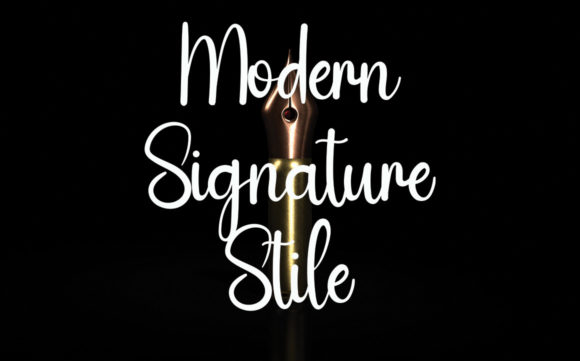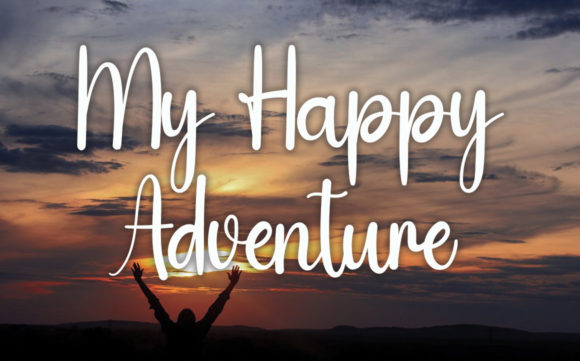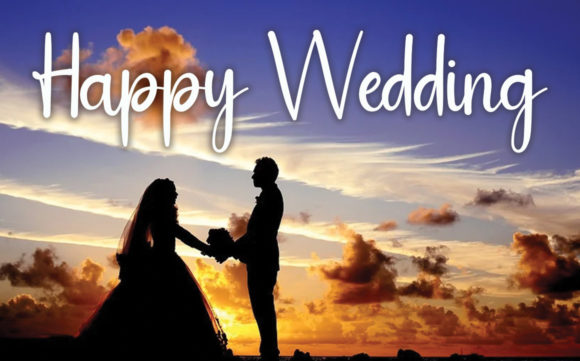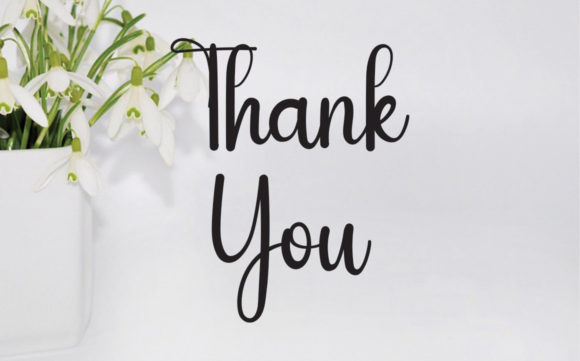
Introducing Gelantis Font: Elevate Your Designs with Elegance and Flair
In the world of typography, a font can make or break a design. For designers and crafters seeking to add a touch of elegance and sophistication to their projects, Gelantis Font is an exceptional choice. This beautiful, flowing handwritten font is perfect for a wide range of applications, from wall displays and wedding invitations to social media posts, logos, advertisements, and more.
The Beauty of Gelantis Font
Gelantis Font boasts a unique, handcrafted aesthetic that sets it apart from more traditional fonts. Its flowing lines and delicate curves give it a feminine, elegant feel that’s ideal for designs where you want to make a lasting impression. Whether you’re creating wedding invitations, branding materials, or product packaging, Gelantis Font adds a touch of class and sophistication that’s sure to captivate your audience.
One of the standout features of Gelantis Font is its incredible versatility. This font isn’t just limited to a specific type of project; it’s designed to be used across a broad spectrum of design applications. Here are some of the many ways you can use Gelantis Font:
- Wall Displays: Create stunning wall art or signage that commands attention with Gelantis Font.
- Wedding Invitations: Add a touch of romance and elegance to your wedding invitations and stationery.
- Social Media Posts: Elevate your social media graphics and posts with a sophisticated, eye-catching font.
- Logos: Use Gelantis Font to create unique and memorable logos for your brand or business.
- Advertisements: Stand out in the crowded world of advertising with elegant typography.
- Product Packaging: Give your products a premium feel with beautifully designed packaging.
- Product Designs: Incorporate Gelantis Font into your product designs for a cohesive and stylish look.
- Labels: Create eye-catching labels for your products or gifts.
- Photography: Use Gelantis Font for watermarks or overlays on your photos.
- Invitations: Perfect for all types of invitations, from birthday and graduation to baby shower and more.
- Stationery: Elevate your stationery and correspondence with a touch of elegance.
Why Choose Gelantis Font?
- Unique Aesthetic: Gelantis Font offers a distinctive look that’s sure to set your designs apart.
- Elegance and Sophistication: Add a touch of class to any project with this beautiful font.
- Easy to Read: Despite its elegant appearance, Gelantis Font remains clear and easy to read.
- Highly Versatile: Use it across a wide range of projects, from digital to print.
Tips for Using Gelantis Font
- Pair with Complementary Fonts: For maximum impact, pair Gelantis Font with simpler fonts to create visual contrast.
- Experiment with Colors: While Gelantis Font looks stunning in black or dark colors, don’t be afraid to experiment with different colors to match your brand or design theme.
- Consider Size: Gelantis Font is elegant at any size, but make sure it’s large enough to be easily readable, especially for body text.
Gelantis Font is a versatile, elegant, and beautiful handwritten font that’s perfect for designers and crafters looking to add a touch of sophistication to their projects. With its wide range of applications and easy-to-use design, Gelantis Font is sure to become a favorite in your font collection. Whether you’re creating wedding invitations, product packaging, or social media posts, Gelantis Font can help you achieve your design goals with style and elegance.